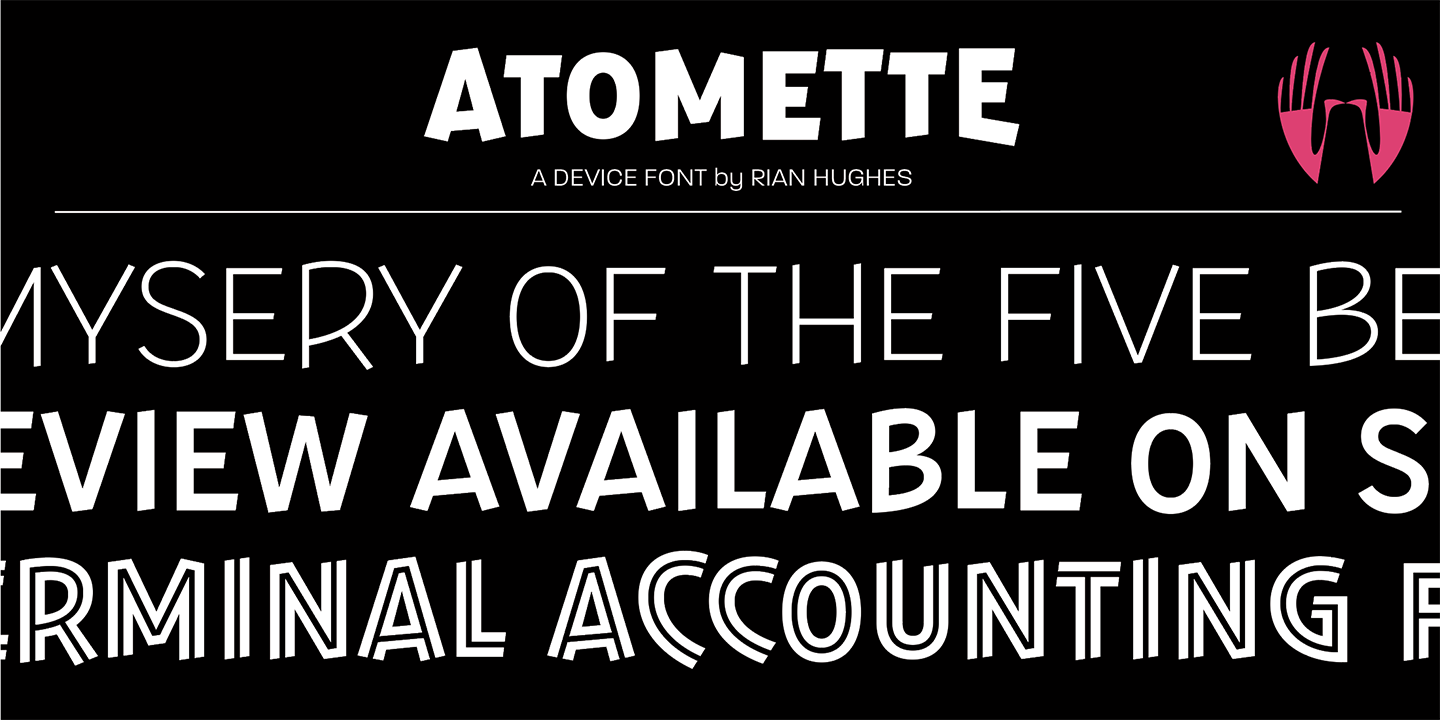
The Atomette Font excels in various design applications including atomic science branding, nuclear research marketing, molecular laboratory communications, quantum physics materials, scientific research institute identities, atomic energy promotions, molecular chemistry signage, nuclear technology documentation, scientific conference packaging, and distinguished scientific projects that demand atomic precision and molecular sophistication.
What makes the Atomette Font exciting is its precise embodiment of atomic structure and molecular science through letterforms that capture the essence of subatomic particles and the sophisticated precision of nuclear physics research. This typeface demonstrates exceptional scientific character through carefully engineered characters that suggest the orbital patterns of atomic structures, the systematic organization of molecular bonds, and the quantum precision that makes atomic science so fundamentally important to modern physics and technological advancement. The font's atomic personality makes it perfect for scientific institutions and research organizations seeking to communicate scientific authenticity, atomic expertise, and the kind of molecular precision that creates memorable scientific experiences through typography that literally bonds with atomic accuracy.
The Atomette Font family typically includes precise weight variations that enhance the scientific aesthetic, featuring molecular styling options and extended character sets optimized for research communications and scientific applications. These family options often include atomic-inspired alternates, scientific symbols, and molecular decorative elements that provide designers with comprehensive tools for creating authentically scientific typography that celebrates atomic research while maintaining contemporary design appeal and scientific credibility.
Scientific professionals and research organizations consistently select Atomette Font Free Download for projects requiring typography that communicates atomic authenticity and scientific sophistication. This typeface delivers exceptional performance in scientific marketing, research branding, and molecular communications where establishing expertise and creating precise scientific atmosphere is essential for scientific engagement. The font's atomic character makes it particularly effective for laboratory and research applications. Download Atomette Font Free Download today to access this scientifically precise typeface that transforms atomic communications with its molecular elegance and scientific sophistication, creating compelling research experiences that honor the magnificent precision of atomic science while celebrating the quantum accuracy that defines authentic scientific culture and molecular excellence.